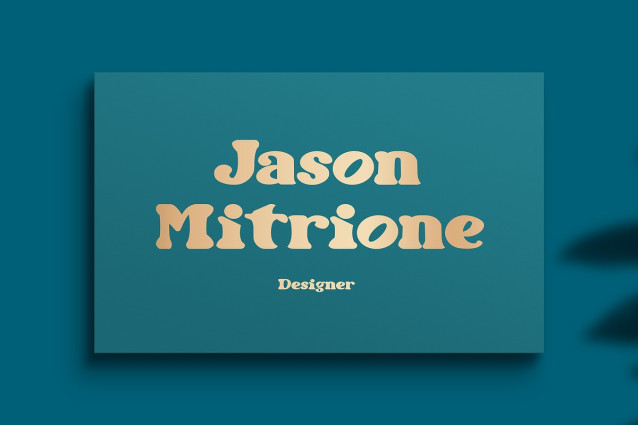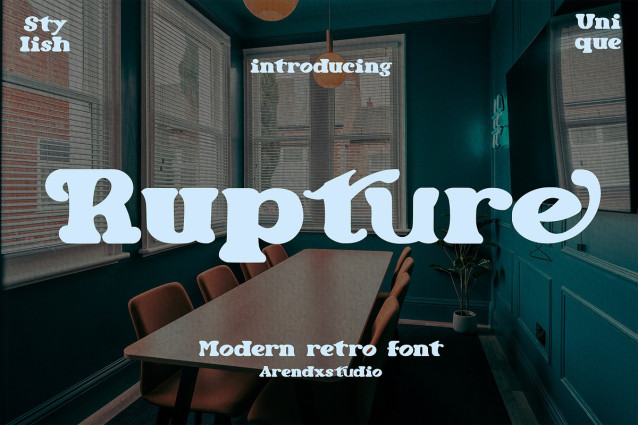
Rupture Font
Rupture Font – Modern Retro Font is a font with distinctive handwritten characters perfect for branding projects, logos, wedding designs, media posts, advertisements, product packaging, product designs, labels, photography, watermarks, invitations, stationery, and any project who need handwritten dishes.